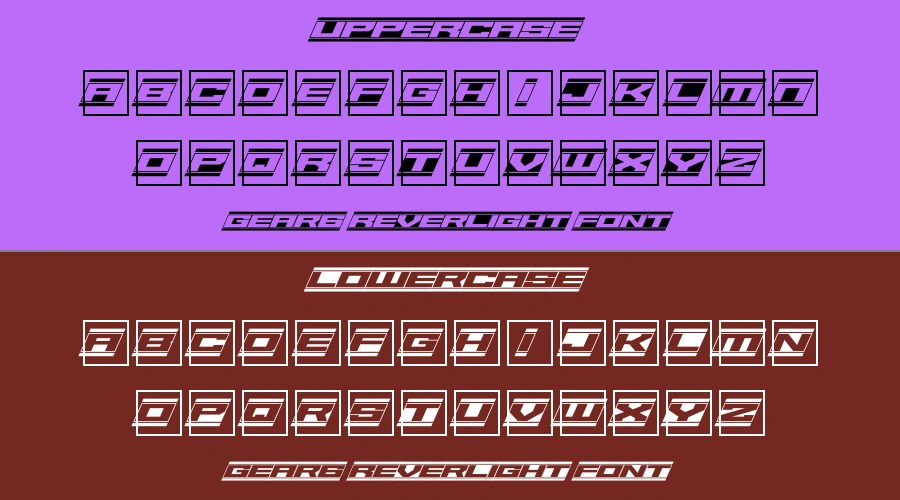
About Gear6 Reverlight Font
Gear6 Reverlight Font embodies typographic excellence through its masterful combination of assertive angles and artistic impact. Created for event branding, this typeface delivers exceptional durability and traditional values across all applications. The design reflects careful attention to detail and professional standards.
Advanced capabilities include distinctive measured spacing and versatile technical characters, giving designers creative control. When used in regulatory documents, Gear6 Reverlight Font exhibits remarkable color consistency. The harmonious balance between bowl shape and cultural relevance sets this typeface apart.